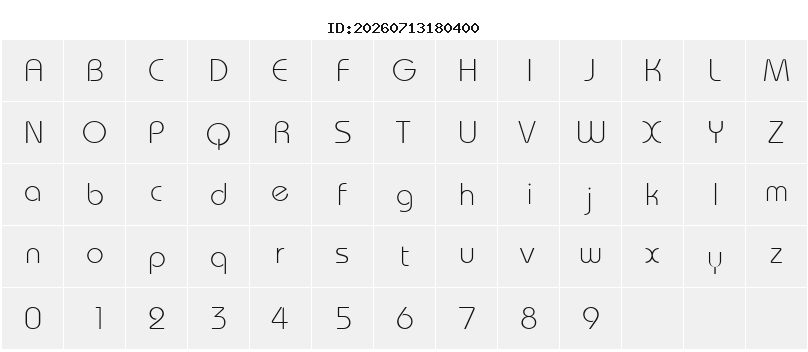
• Font Name: Bahamas Light
• Full Font Name: Bahamas Light Plain
About Bahamas Light.ttf
Bahamas Light.ttf is a modern, elegant sans-serif font designed for ultimate readability and visual harmony. Perfect for branding, headlines, web design, and print materials.